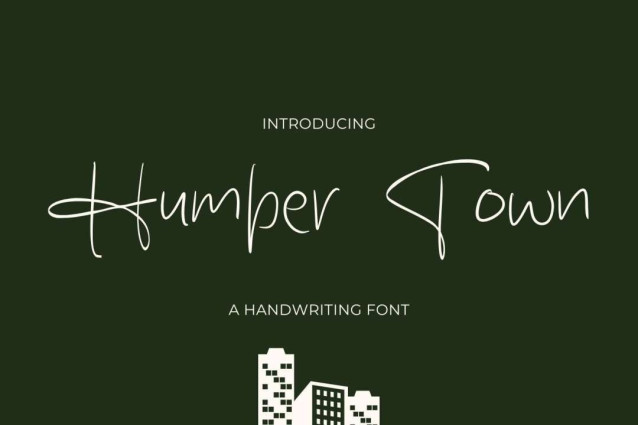
Humber Town Font
Humber Town Font is a simple and friendly handwritten font. Its natural and unique style makes it incredibly fitting to a large pool of designs. The only limit is your imagination!